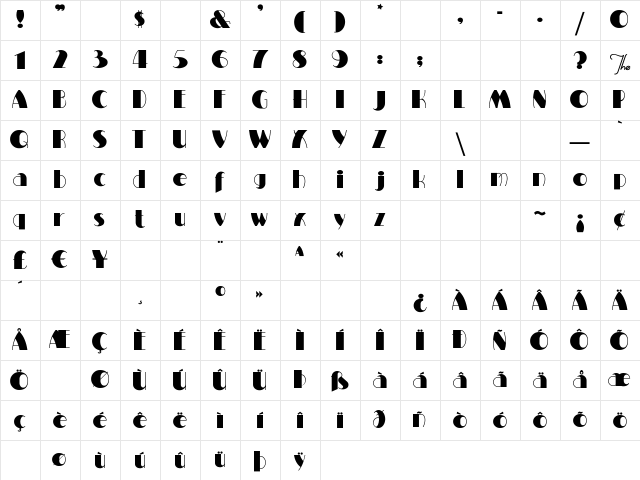
MiltonBurlesque Regular
Design Context for MiltonBurlesque
MiltonBurlesque is a composed and adaptable typeface that performs quietly and consistently across a wide range of design contexts.